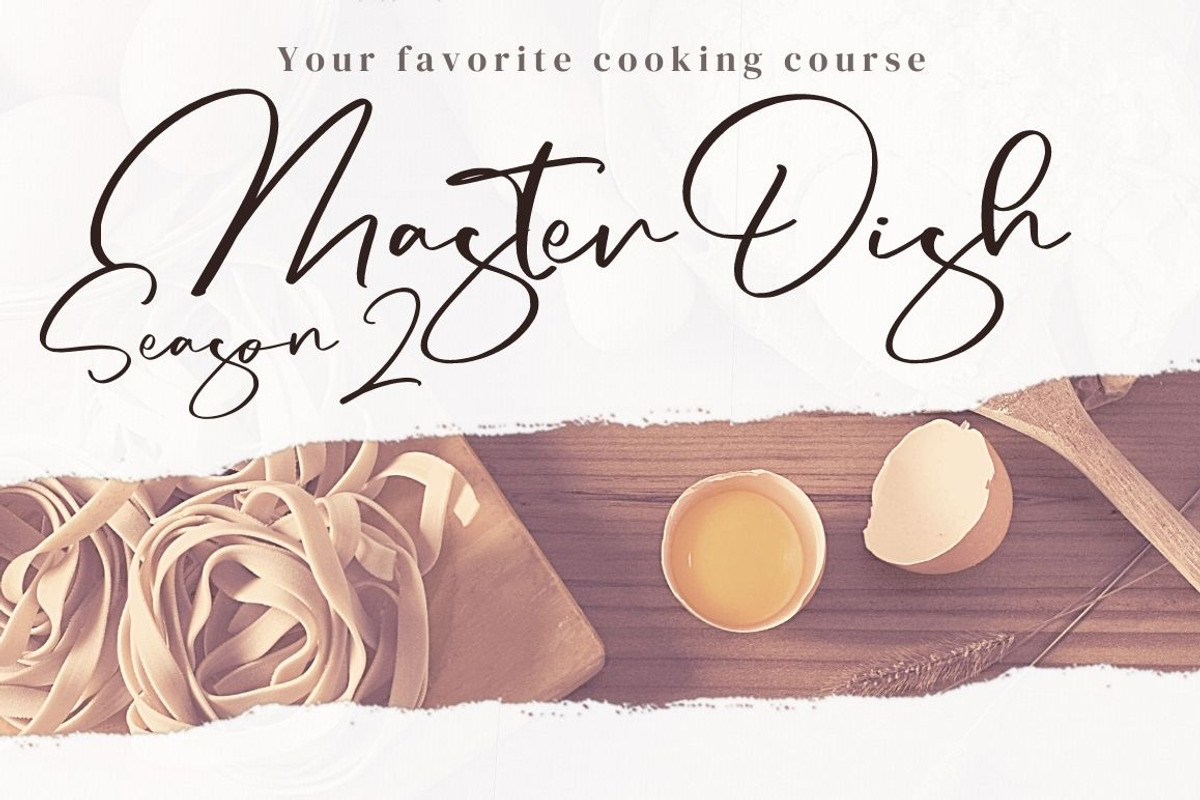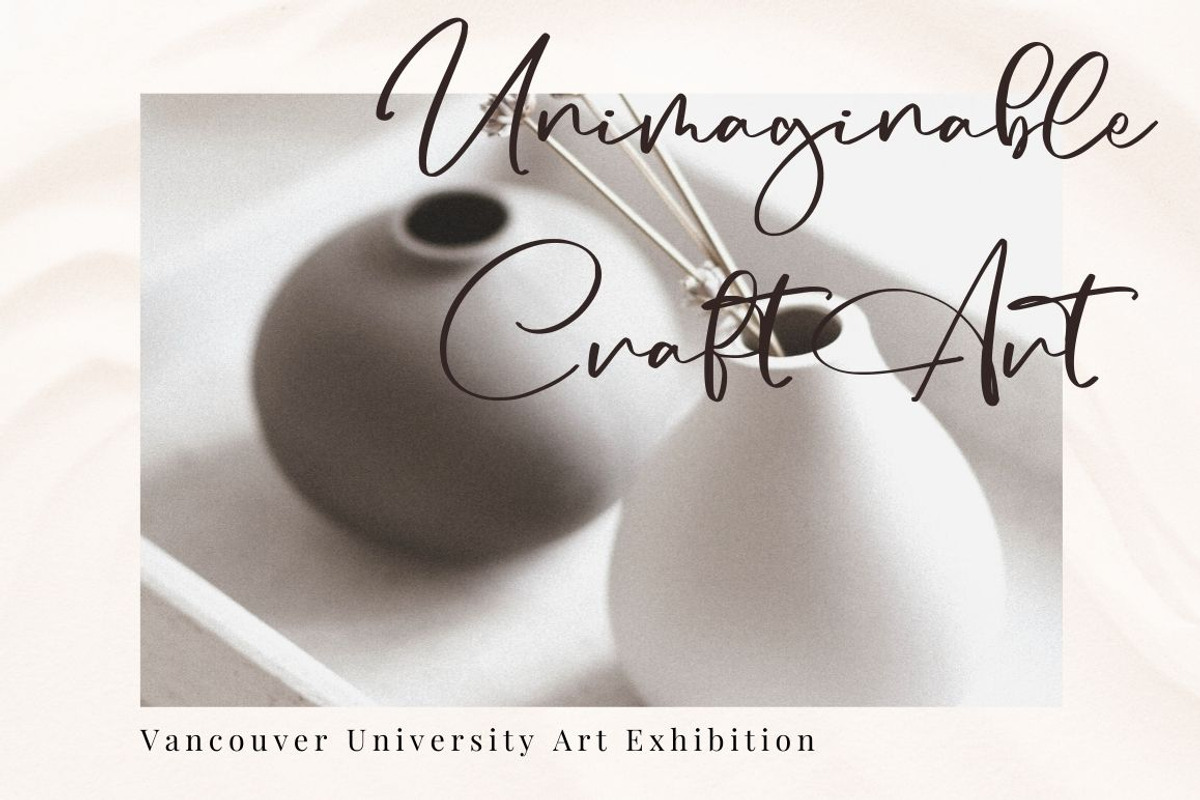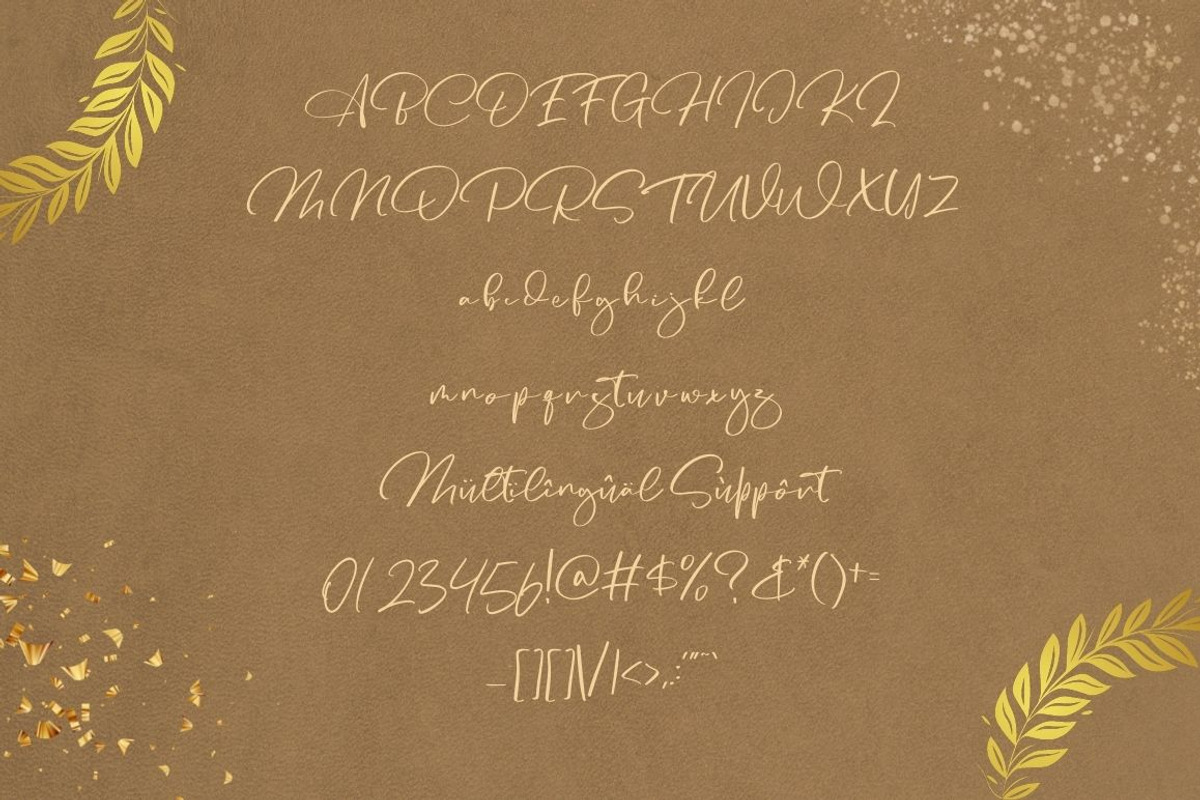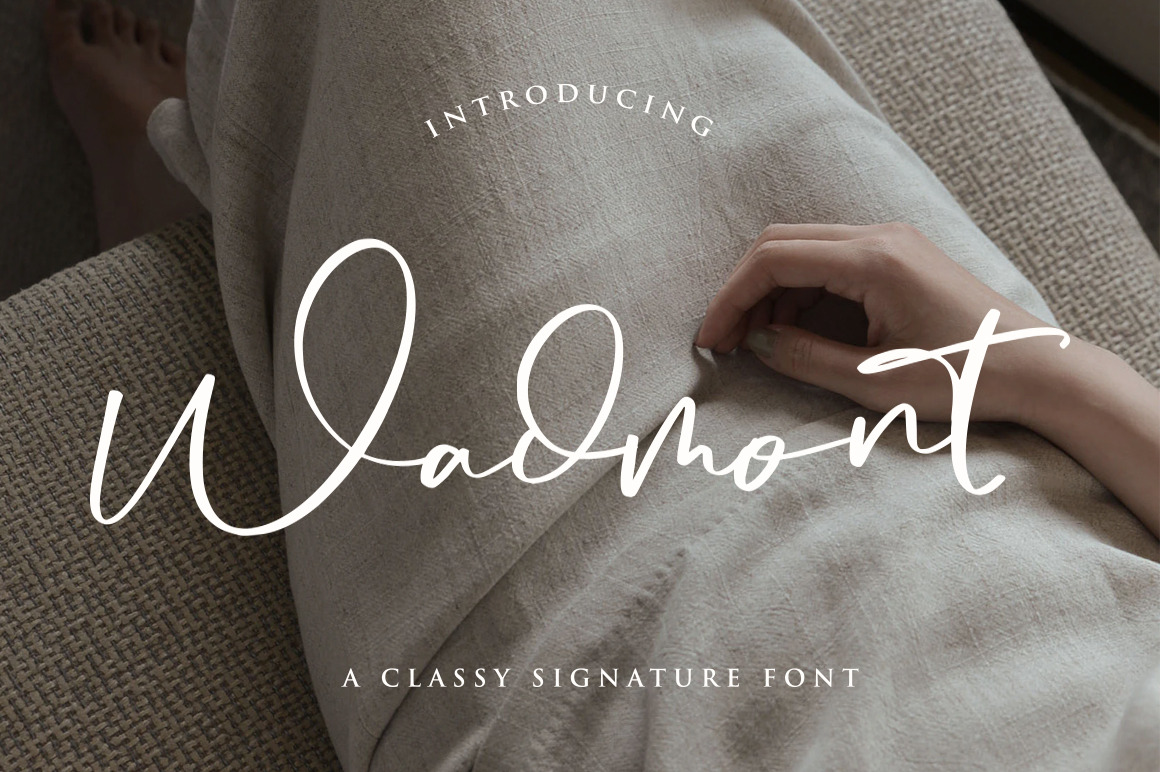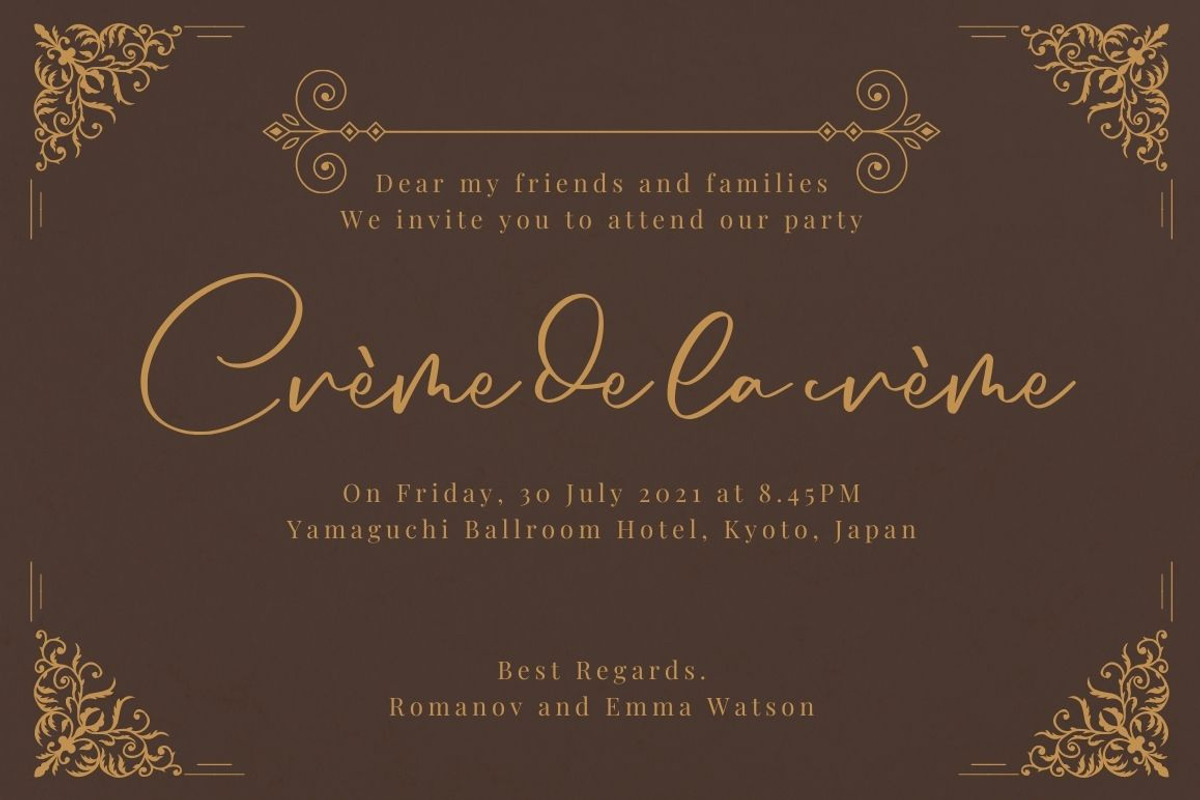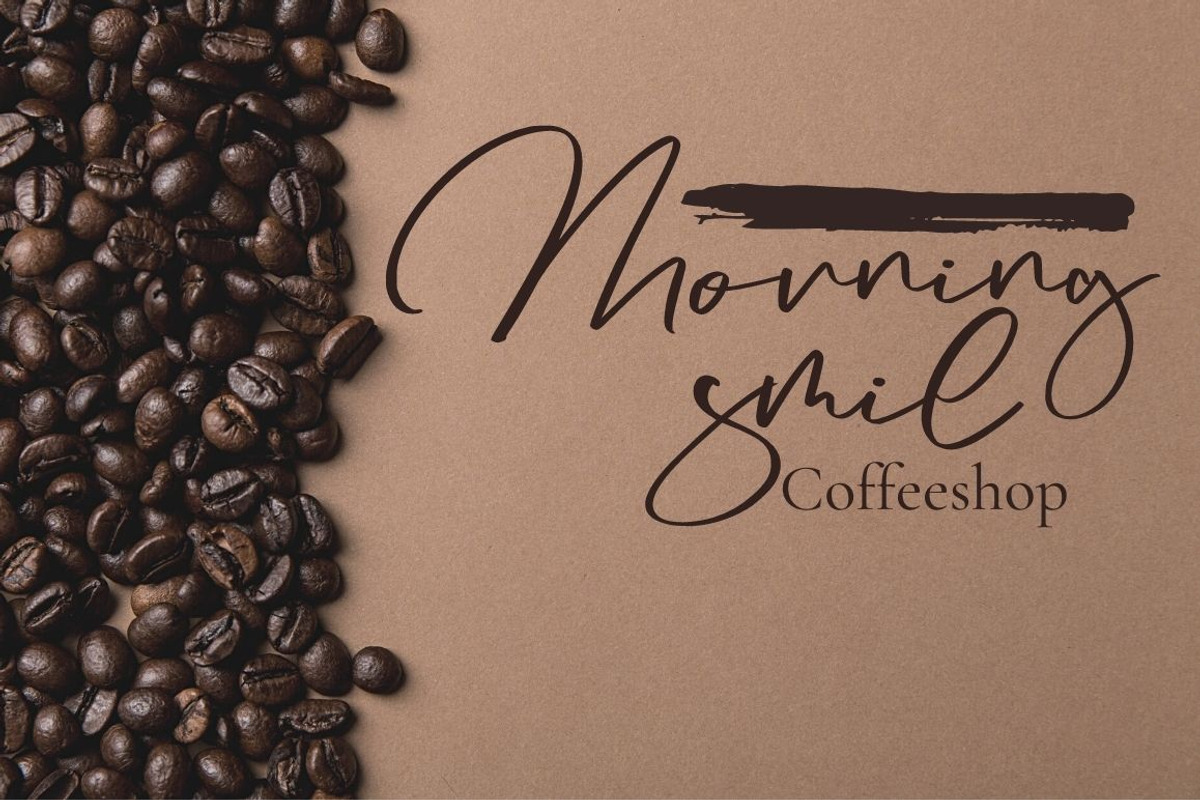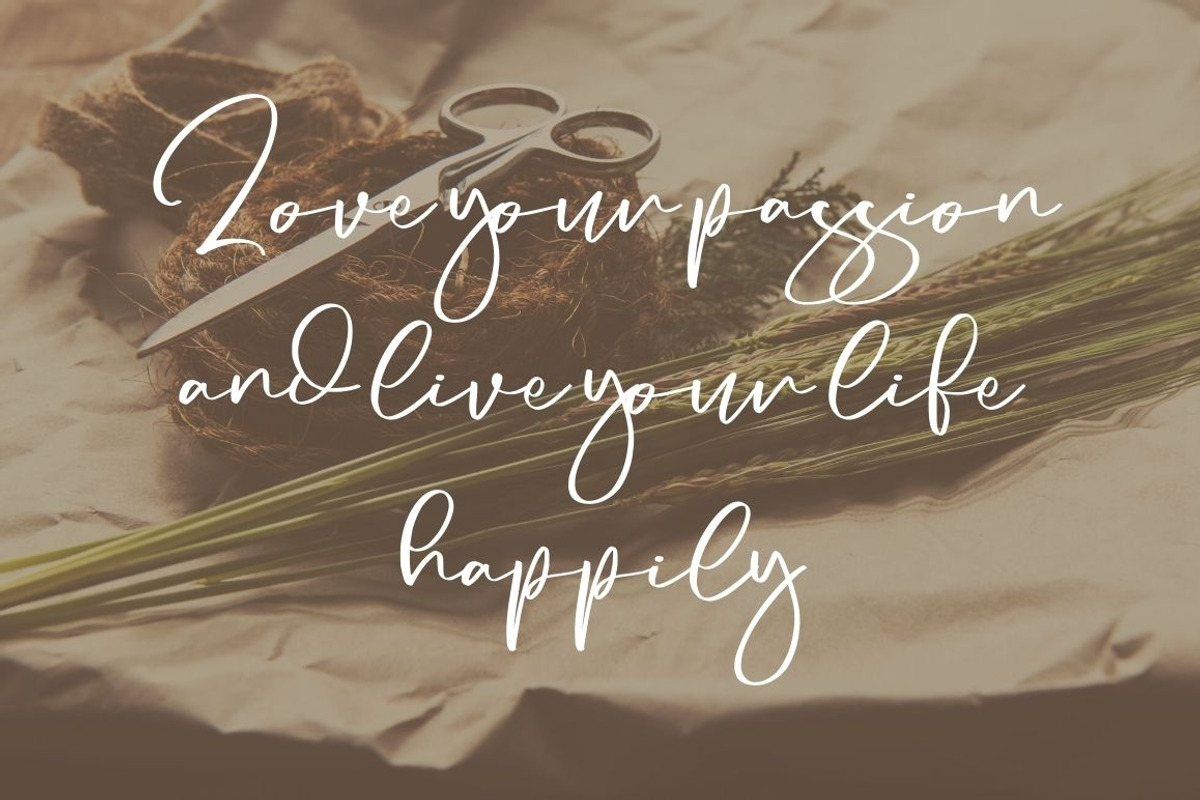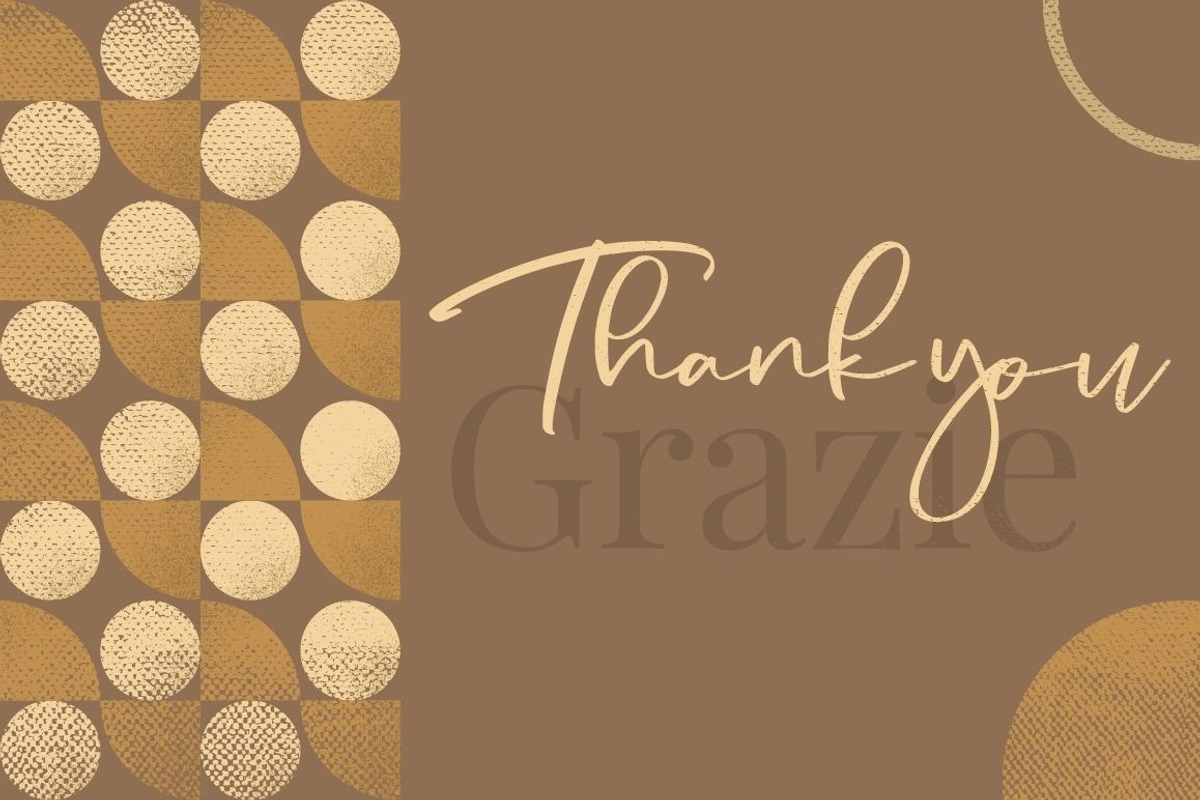
Wadmont - Aesthetic Signature Font
Wadmont is cursive handwritten font, relaxed and timeless. Employ it to each of your creative designs and notice how they come alive!
- Uppercase + Lowercase Letters
- Numbers + Punctuation
- Ligature Feature
- OpenType features